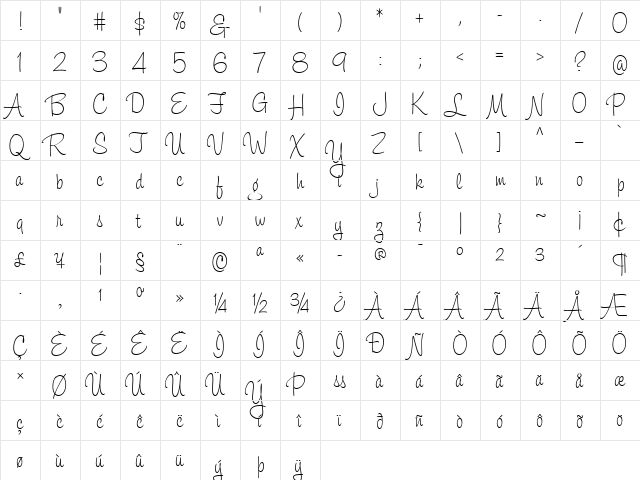
EdTTF Script
| Designer | Ed Benguiat, Ken Barber |
Design Context for EdTTF Typeface
EdTTF flows with the natural rhythm of handwritten lettering, making it ideal for designs that call for warmth and personal expression.
Font Pairing: Combine EdTTF with a simple geometric sans for maximum contrast — the tension between flowing curves and clean structure is a classic typographic pairing.
Pro Tip: Use EdTTF for short runs of text — names, titles, or taglines. Extended body copy in script faces tires the eye quickly.